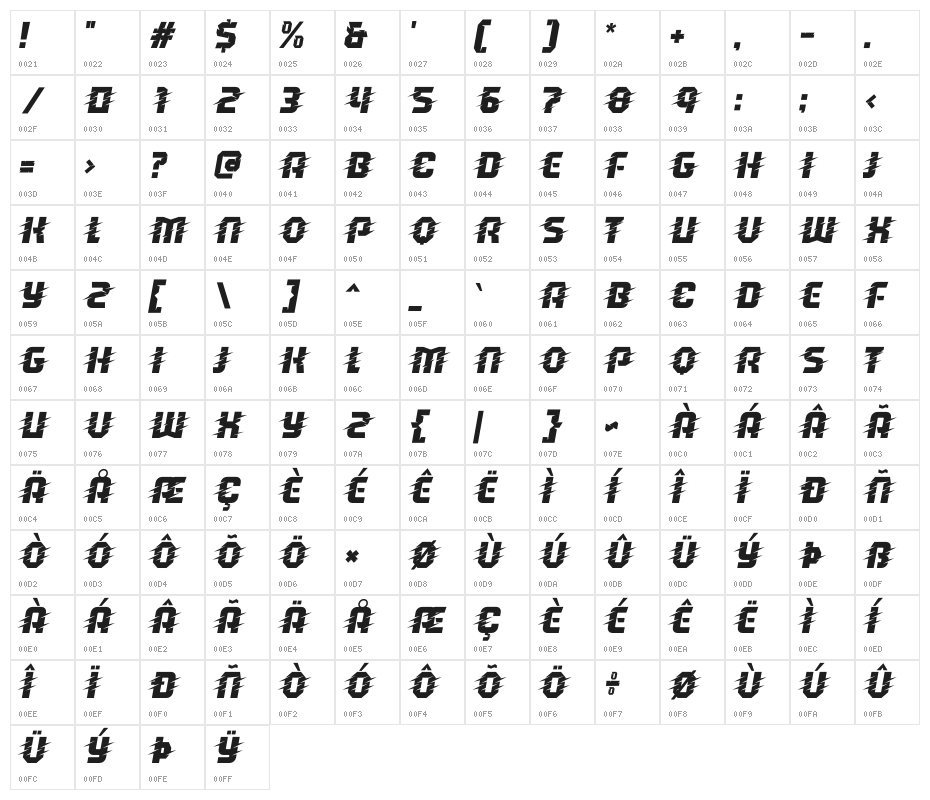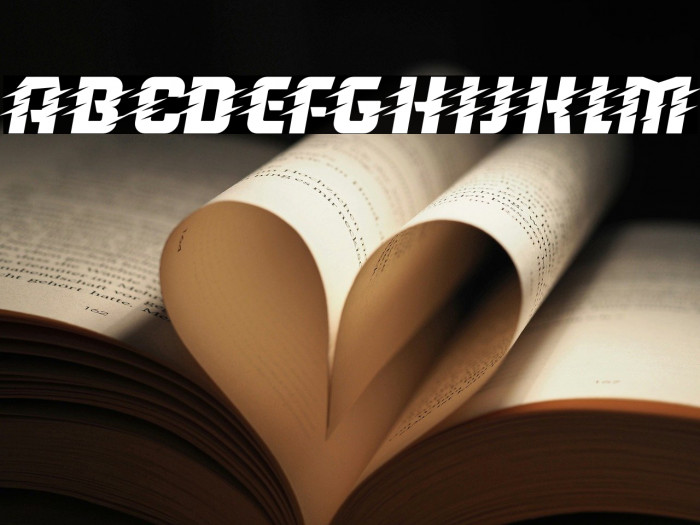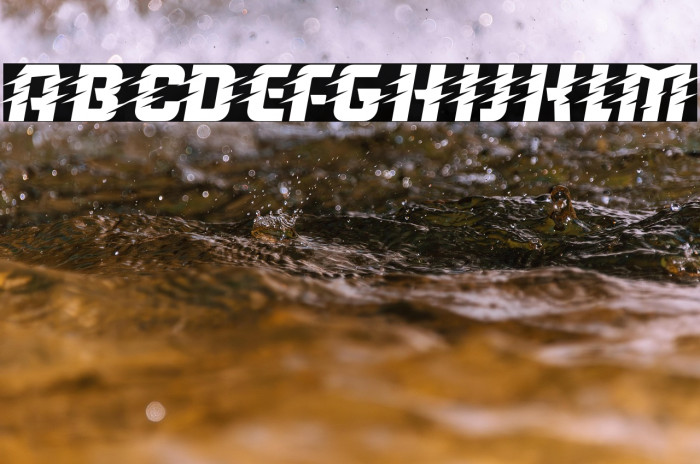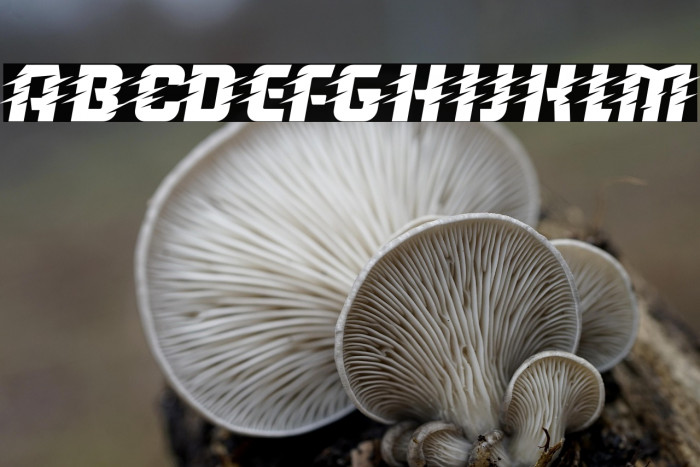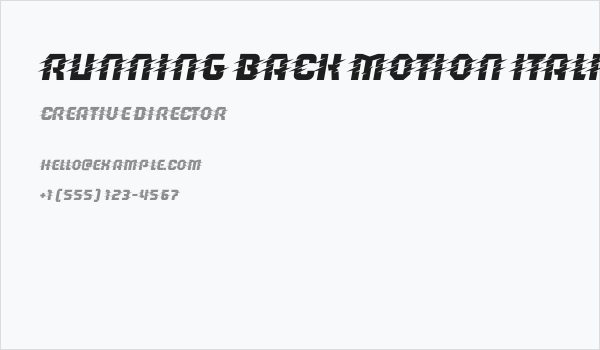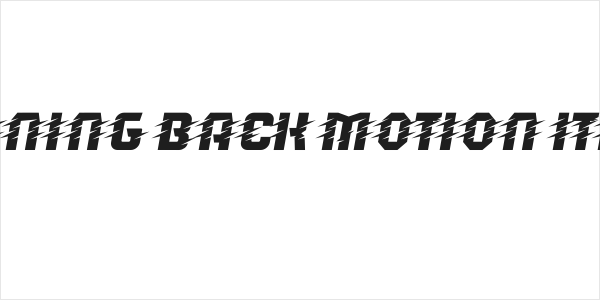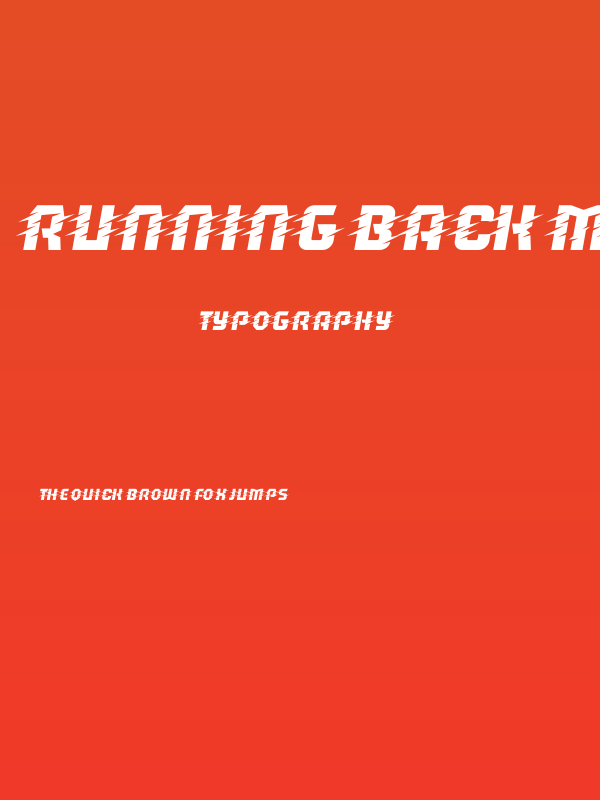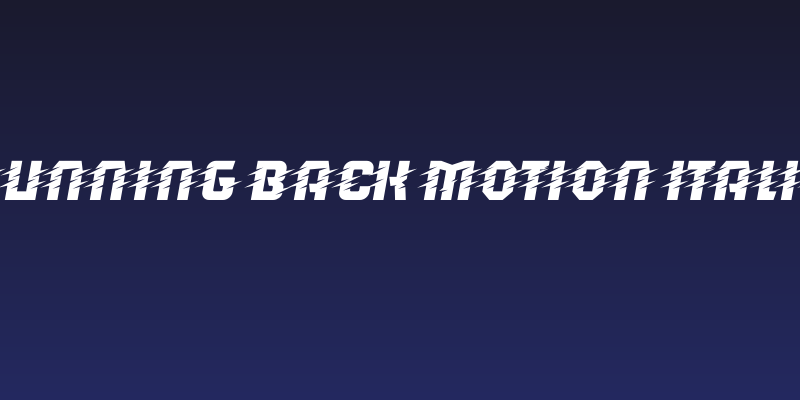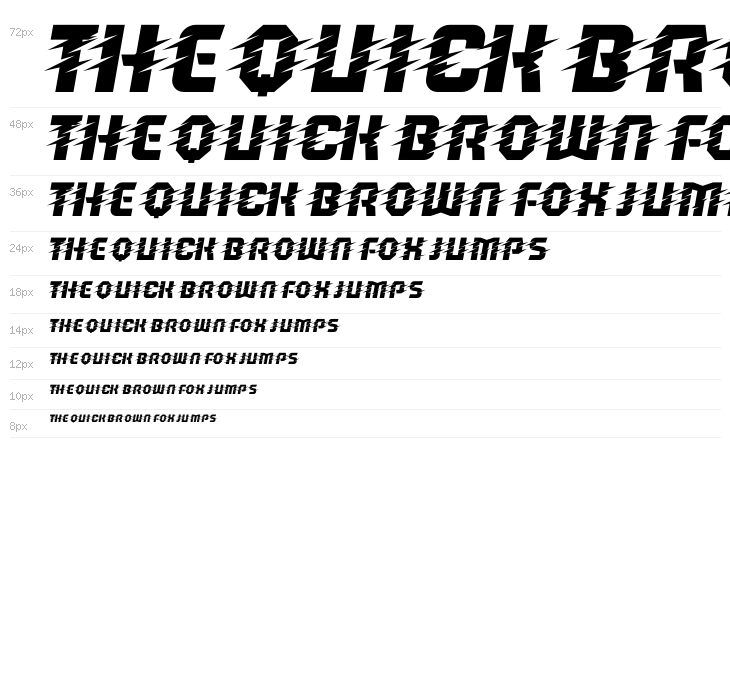
Running Back Motion Italic Font
Running Back Motion Italic Description
This dynamic and bold font exudes a sense of speed and energy, characterized by its italicized, slanted design that suggests motion. The letters are sharply angular, with a distinct zigzag pattern running through each character, enhancing the impression of movement. The font is highly stylized, with thick strokes and a strong presence, making it ideal for attention-grabbing headlines or branding that requires a modern, edgy look. Its unique design elements make it stand out, while the consistent slant across all characters maintains readability.
| Proposed Projects | Ideal for sports branding, dynamic posters, modern advertising, and edgy logo designs. |